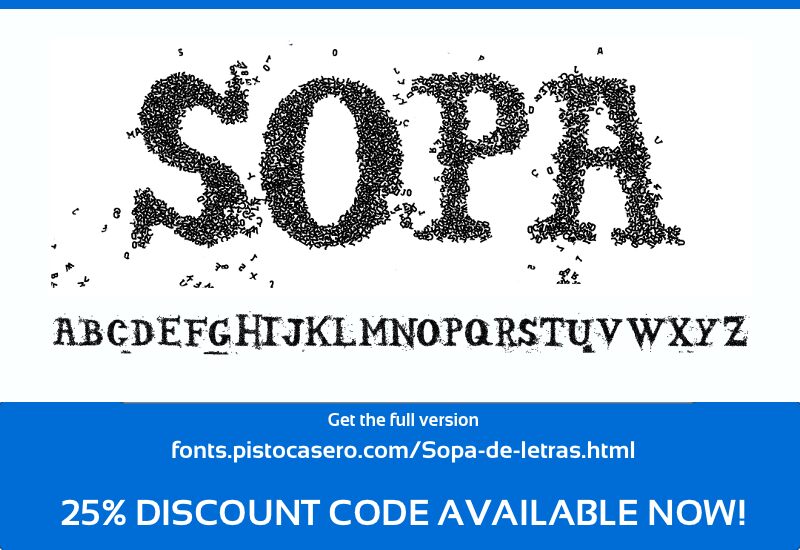
Sopadeletras by Pisto Casero is a free distressed display font with broad, imposing capitals and traditional serif foundations. Dense clusters of pits and specks chew through the strokes, leaving every edge restless and uneven. The damage feels granular rather than scratched.
For music posters it suggests decayed ink and noisy photocopies, yet the same worn surface can make craft packaging feel aged and tactile. It also belongs on horror book covers and underground event graphics, where the scattered fragments can merge with dust, debris, or distressed illustration. Posters are its strongest setting because the large serif shapes remain forceful beneath the erosion.